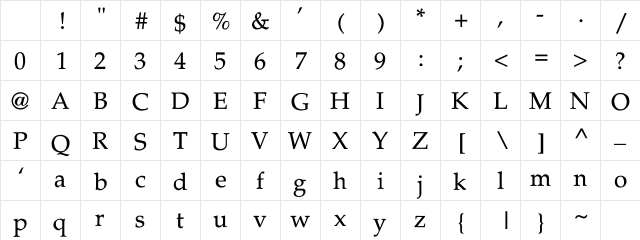
PalmSprings-Normal Regular
Complete PalmSprings-Normal Regular glyph index. Displaying only characters natively supported by PalmSprings-Normal Regular font.
Design Context for PalmSprings-Normal
PalmSprings-Normal is a composed and adaptable typeface that performs quietly and consistently across a wide range of design contexts.